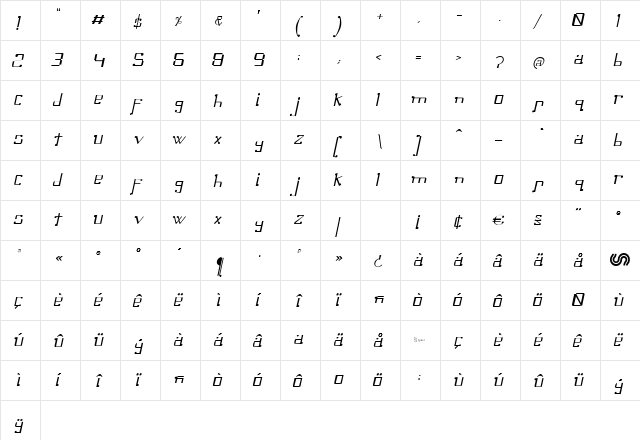
Omellons LightItalic Font Preview
Omellons LightItalic
Omellons LightItalic Font Details
Design Context for Omellons Typeface
Omellons is a composed and adaptable typeface that performs quietly and consistently across a wide range of design contexts. The slanted form adds forward momentum and visual energy. Its slender proportions lend an understated elegance to any composition.
Pro Tip: Use Omellons for emphasis, pull quotes, and subheadings where its slanted energy can add rhythm to the layout.